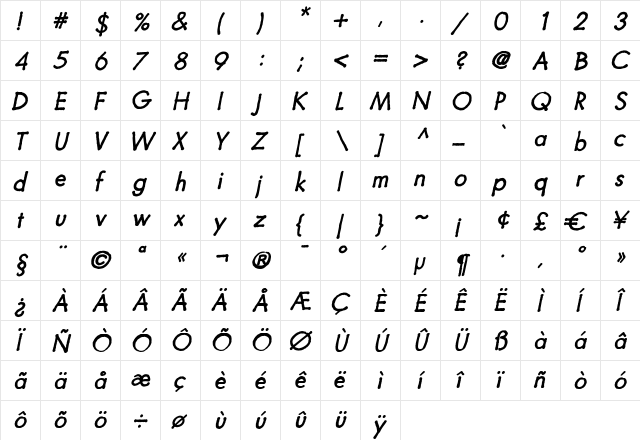
Futuramano Plain Italic
| Foundry | Gert Wiescher, Wiescher-Design, Munich, Germany,https://www.wiescher-design.de |
Design Context for Futuramano Typeface
Futuramano channels digital-age aesthetics through its sharp, structured letterforms — ideal for brands that want to signal innovation. The slanted form adds forward momentum and visual energy.